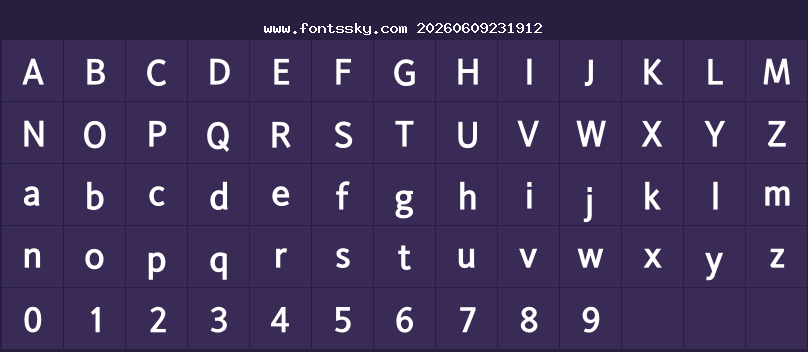
KBIZ한마음고딕 H Preview
• Font Name: KBIZ한마음고딕 H
• Font ID: KBIZ한마음고딕 H Regular
• Full Font Name: KBIZ한마음고딕 H
• PostScript Name: KBIZforSMEsgo_H
• Character Count: 18811
About KBIZ한마음고딕 H.otf
KBIZ한마음고딕 H.otf is a modern, elegant sans-serif font designed for ultimate readability and visual harmony. Perfect for branding, headlines, web design, and print materials.